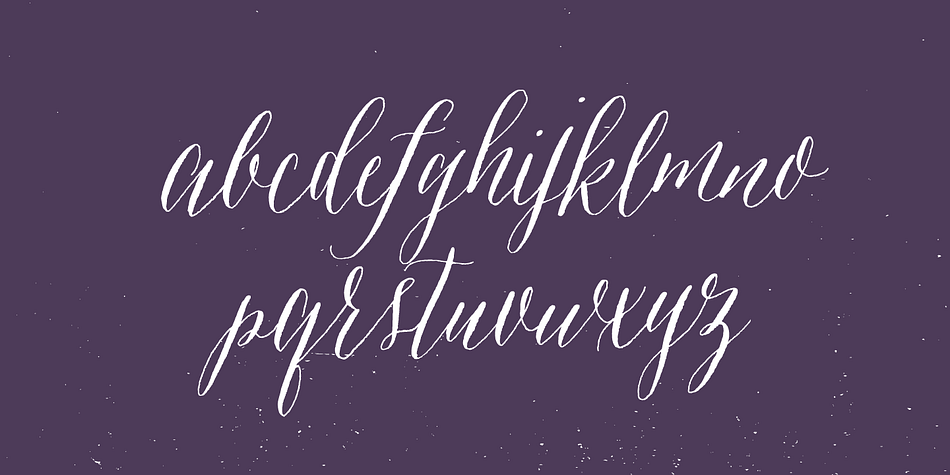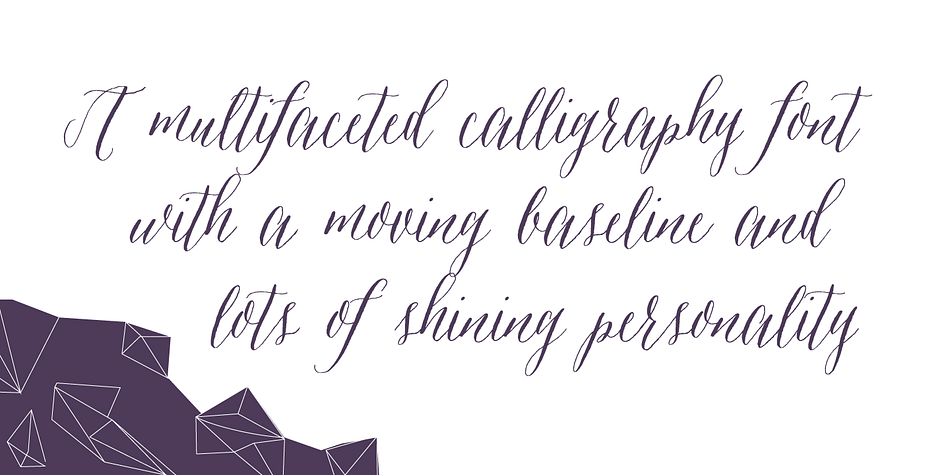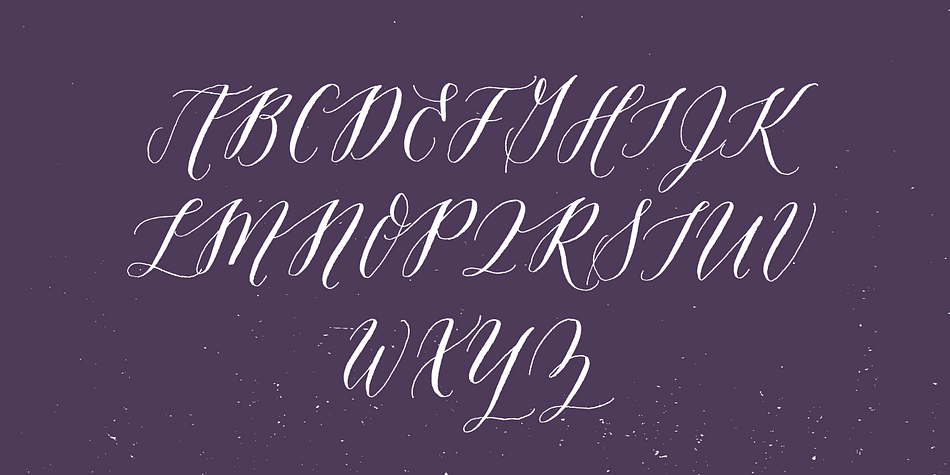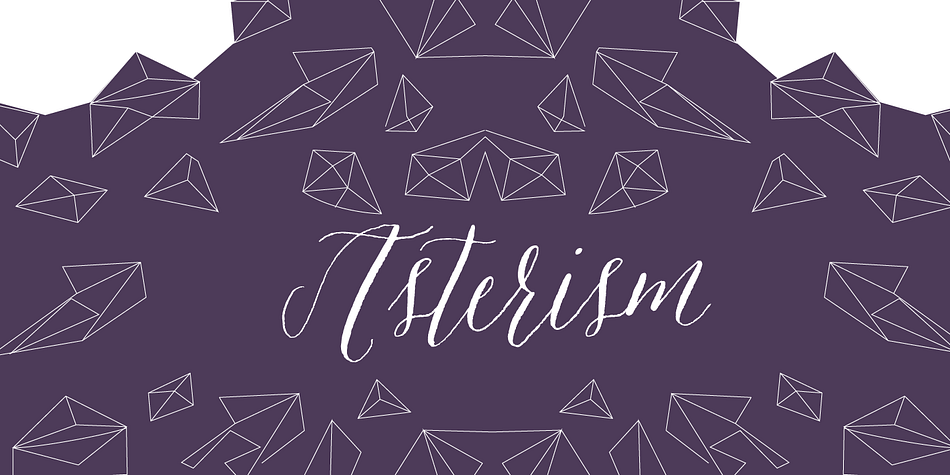
Asterism is a calligraphy style font with a moving baseline and lots of shining personality. This hand written style font is based on one of Molly's signature calligraphy styles and pairs beautifully with Frosted, Icing, and Saint Agnes.